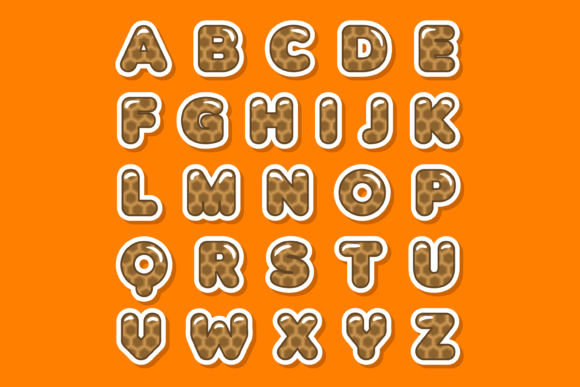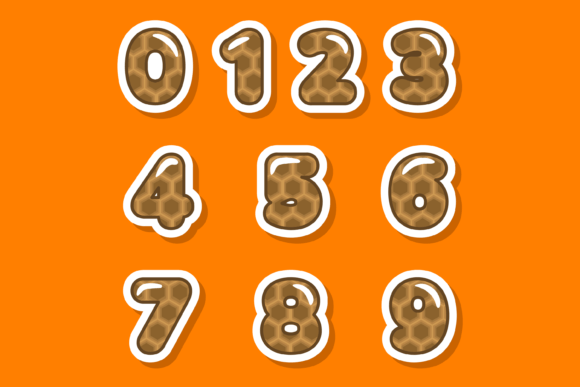
Honeycomb Font
About Honeycomb Font
The Honeycomb font is an incredibly cool and captivating color font that adds a unique touch to your custom designs, DIY crafts, and various creative projects. Inspired by the geometric pattern of honeycombs, this font brings a visually appealing and modern aesthetic to your work.
Each letter of the Honeycomb font is designed with intricate hexagonal shapes, resembling the structure of honeycomb cells. The color palette used in the font adds vibrancy and depth, making it stand out and catch the viewer’s eye. Whether you’re designing logos, posters, invitations, or any other creative piece, the Honeycomb font will give your work a distinct and captivating look.
The versatility of the Honeycomb font allows it to be used in a wide range of applications. It’s perfect for creating DIY crafts such as greeting cards, scrapbooking, and home decor items. You can also incorporate the font into digital designs, website graphics, and social media posts to add a touch of modernity and visual interest.
With its lovely and eye-catching appearance, the Honeycomb font is sure to make a statement in your projects. The geometric shapes and vibrant colors make it an ideal choice for designs that require a contemporary and artistic touch. Let your creativity flow and explore the endless possibilities of incorporating the Honeycomb font into your creations.
Whether you’re a professional designer, a hobbyist, or simply looking to add a unique flair to your crafts, the Honeycomb font is an amazing choice. Its cool and captivating style will elevate your designs and bring a sense of charm and modernity. Embrace the beauty of honeycomb-inspired typography and let the Honeycomb font be your go-to option for adding a lovely touch to your creative endeavors.